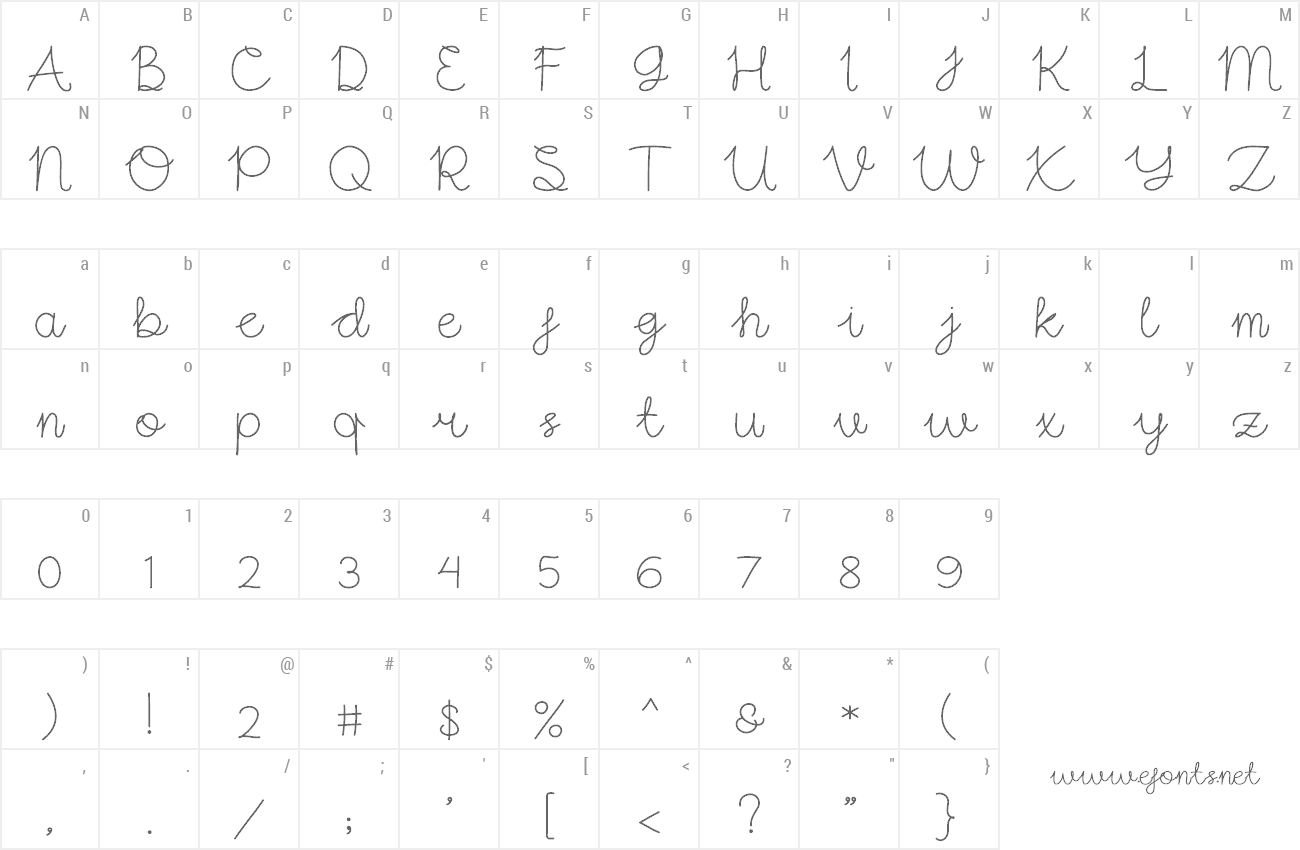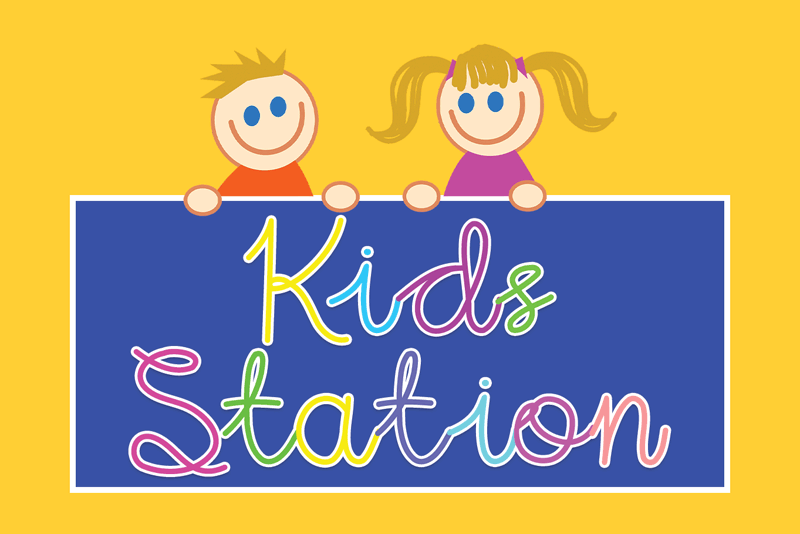
| Font name: | Kids Station |
| Categories | Script, School |
| Author: | Luluk Surotul |
Kids Station is a relaxed and simple handwritten font. It is the best choice for creating eye catching logos, branding and quotes. Every letter has a unique and beautiful touch, which will make your design come alive! Attention : Kids Station handwriting Font is prohibited to use this font for commercial purposes or for profit without the permission of the author/admin, without being known to use this font without permission, will be subject to sanctions 5x the specified price. This font is used only for demos (Demo license) If you want to use this font for commercial use please contact email: elllulukstudio123@gmail.com or click the link below: https://www.creativefabrica.com/product/kids-station/ref/761303/ If you want to see more other fonts, please click: https://www.creativefabrica.com/designer/el_hotcig/ref/761303/ Any donations are very appreciated. Paypal account for donation: https://www.paypal.com/paypalme/luluk783 thanks. |